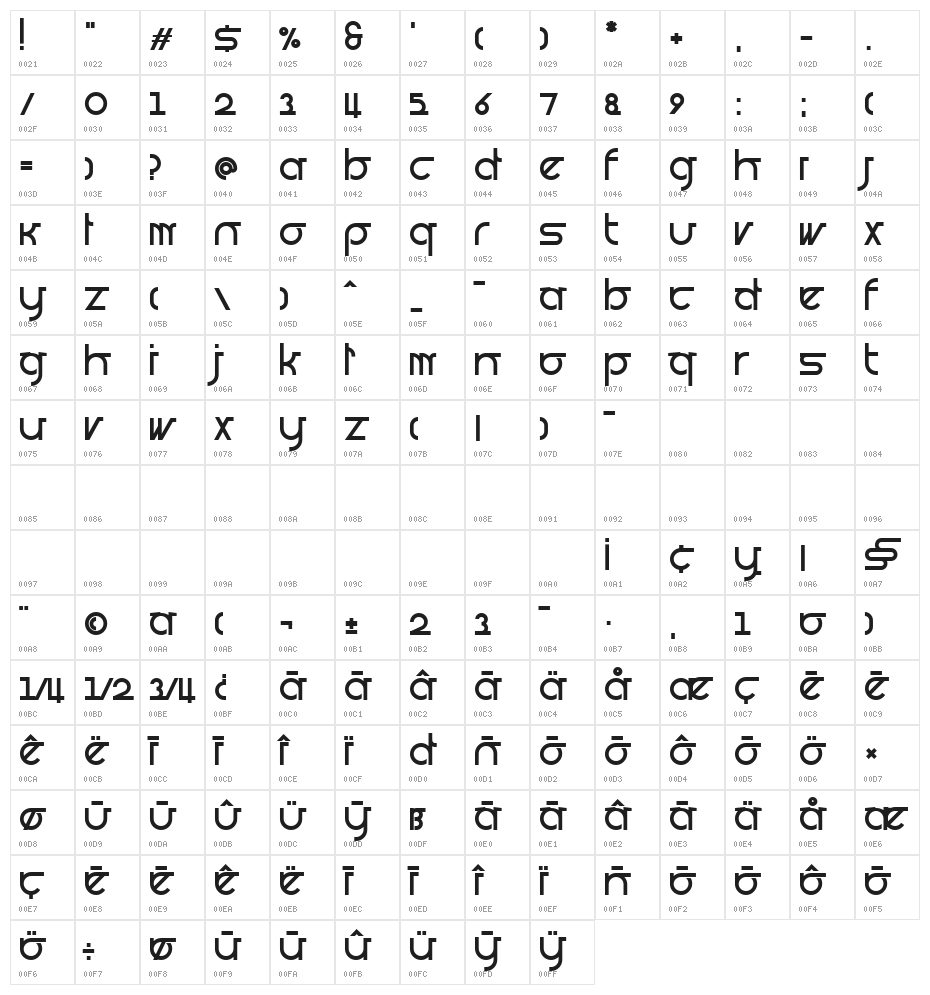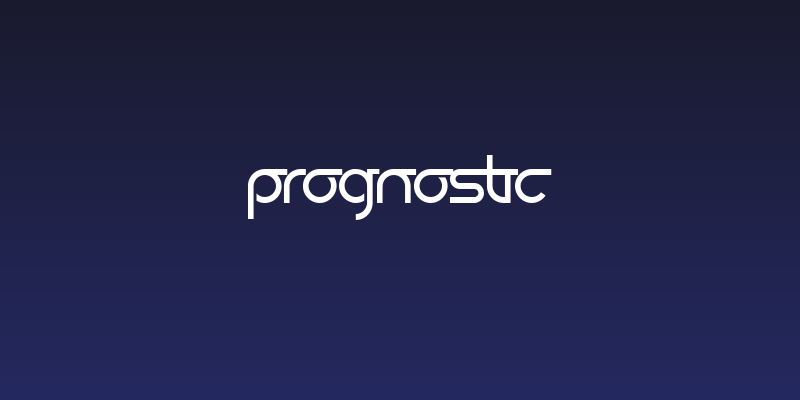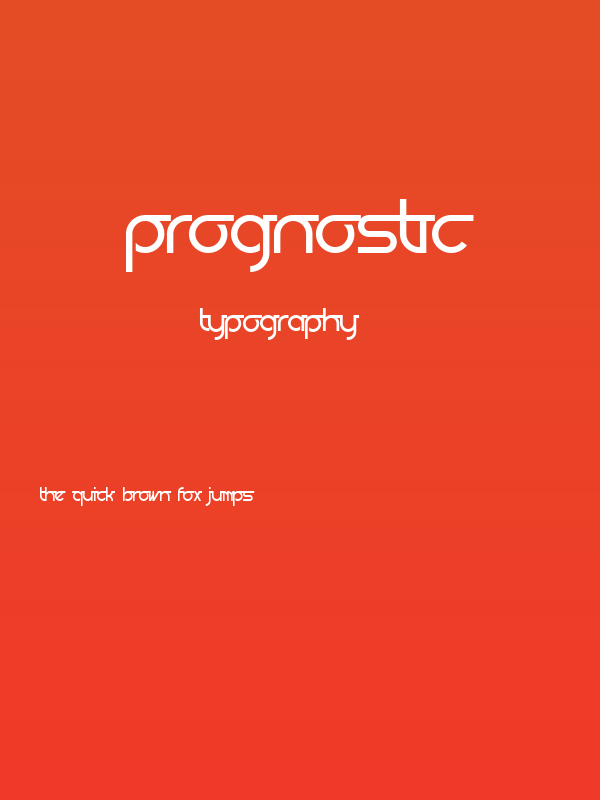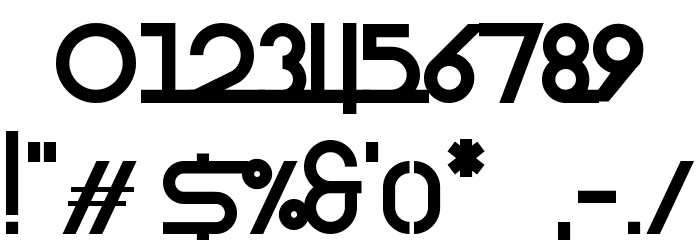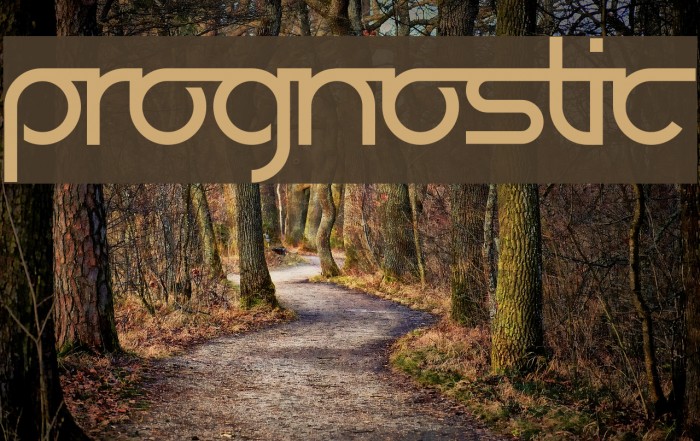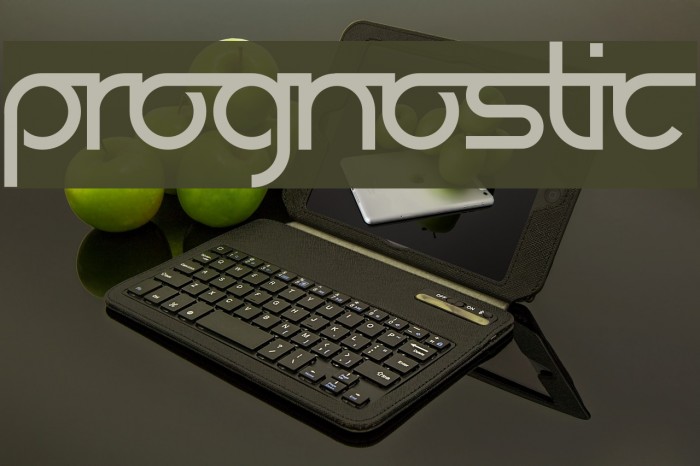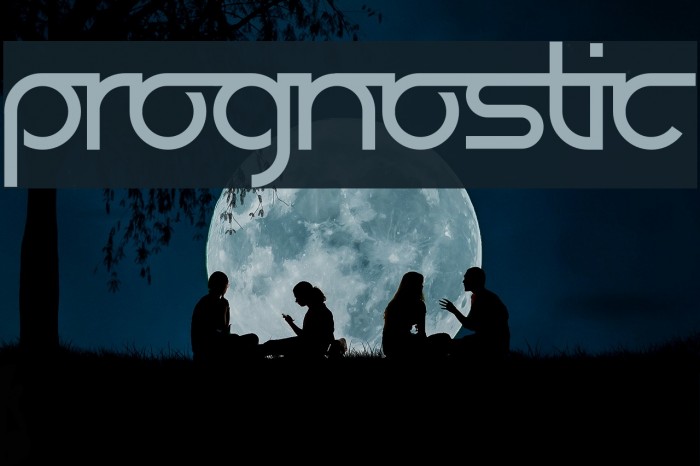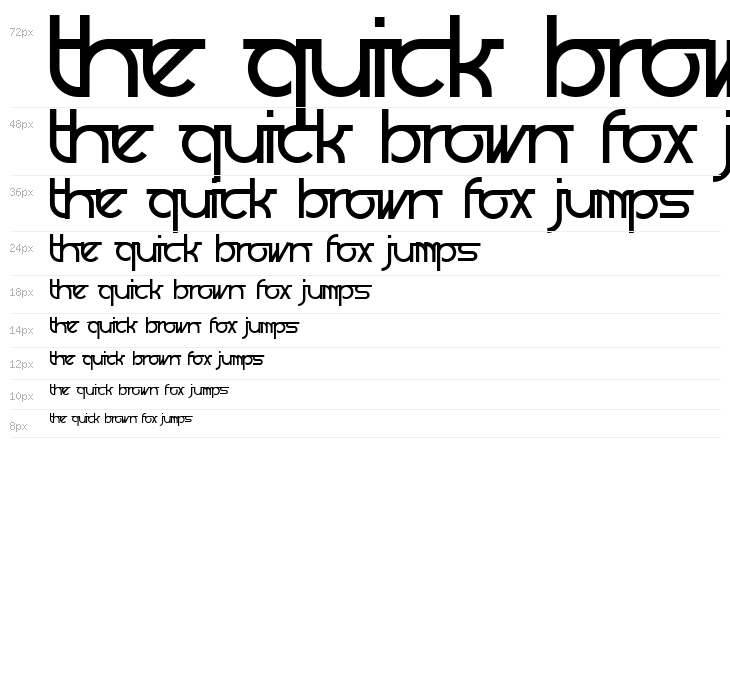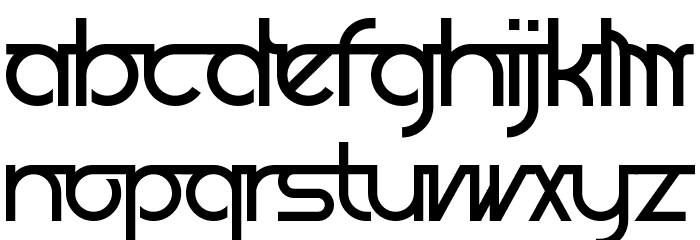
Prognostic Font
Prognostic Description
This font features a futuristic and geometric design, characterized by its bold and angular letterforms. The characters exhibit a consistent stroke width, contributing to a uniform appearance. The uppercase and lowercase letters share similar design elements, enhancing the cohesive look. The numerals are distinct and align well with the overall style, while the special characters maintain the geometric theme. The font's modern aesthetic makes it suitable for contemporary design projects.
| Proposed Projects | Ideal for technology branding, sci-fi posters, modern logos, and digital interfaces. |